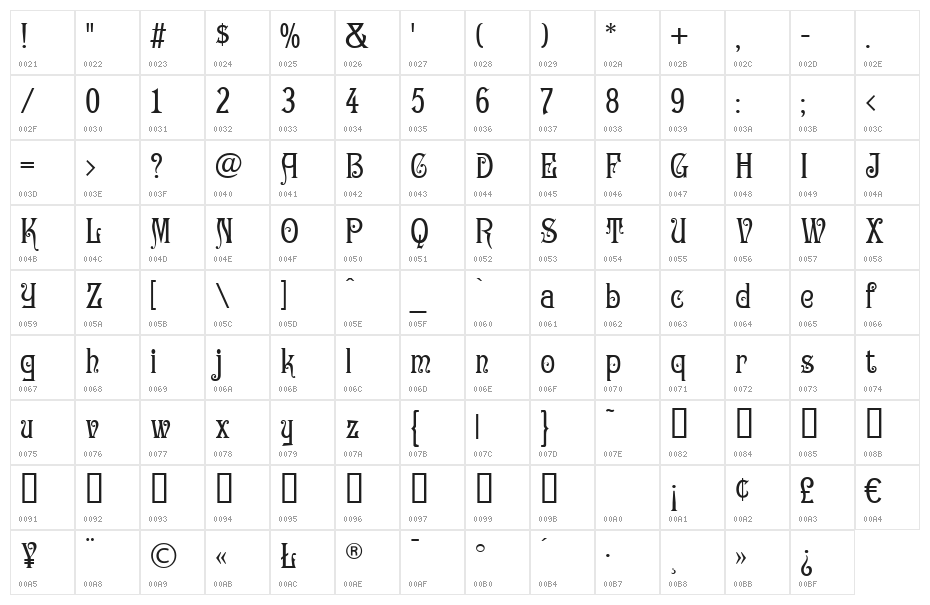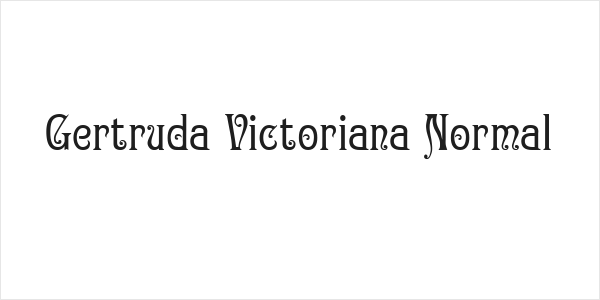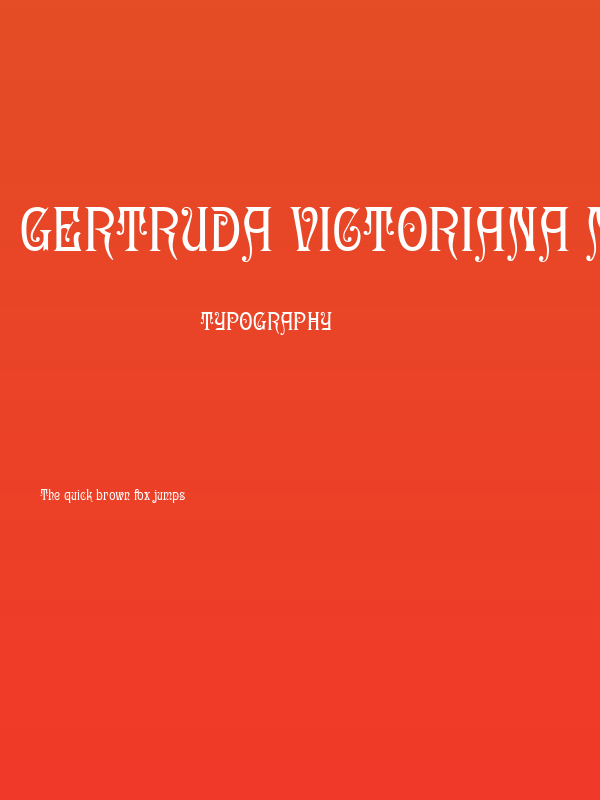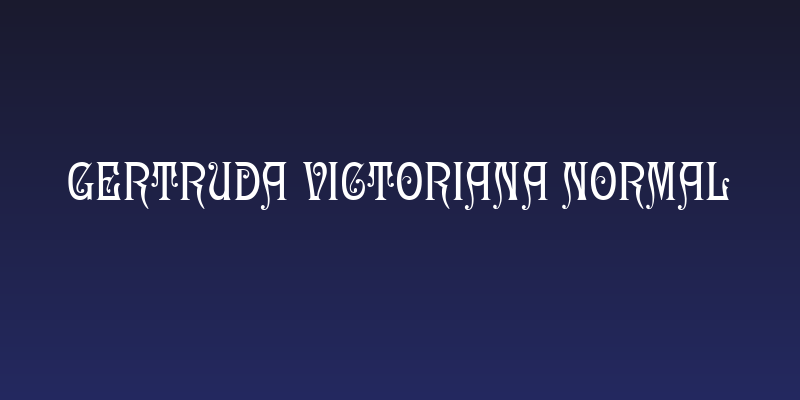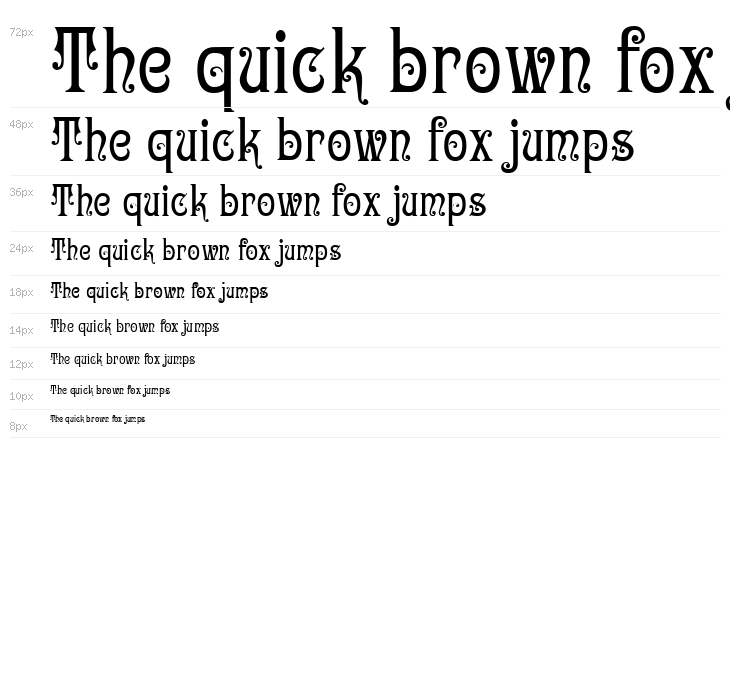
Gertruda Victoriana Normal Font
Gertruda Victoriana Normal Description
This font exudes a Victorian charm with its ornate and decorative elements. Each letter is adorned with intricate curls and embellishments, creating a sense of elegance and sophistication. The uppercase letters are particularly elaborate, featuring unique serifs and flourishes that give the font a distinct personality. The lowercase letters maintain a consistent style, complementing the uppercase with their own subtle decorations. Numbers and special characters are designed to match the overall aesthetic, ensuring a cohesive look across all text. This font is perfect for projects that require a touch of vintage elegance and historical flair.
| Proposed Projects | Ideal for wedding invitations, vintage-themed branding, historical publications, and decorative signage. |